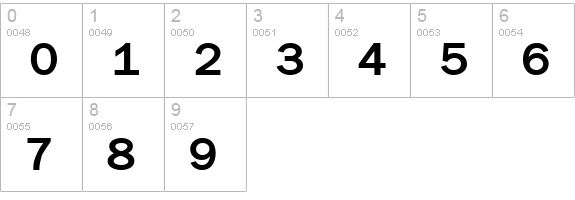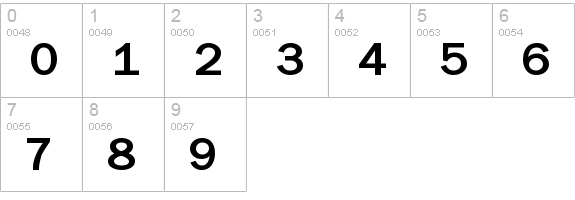
LibraryGothicExtraBold Font Details
LibraryGothicExtraBold is a striking and commanding typeface that exudes a sense of strength and boldness. Its thick, heavy strokes make a powerful statement, perfect for titles, headlines, and other attention-grabbing text. The sharp edges and clean lines give this font a modern and edgy look that is sure to make a lasting impression. And the best part? LibraryGothicExtraBold is available for free download at FontsMarket.com! This means you can easily add this impactful font to your design projects without any cost. Whether you're working on branding materials, posters, or website headers, LibraryGothicExtraBold will bring a touch of sophistication and strength to your designs. Download it today and let your creativity shine with this exceptional typeface.